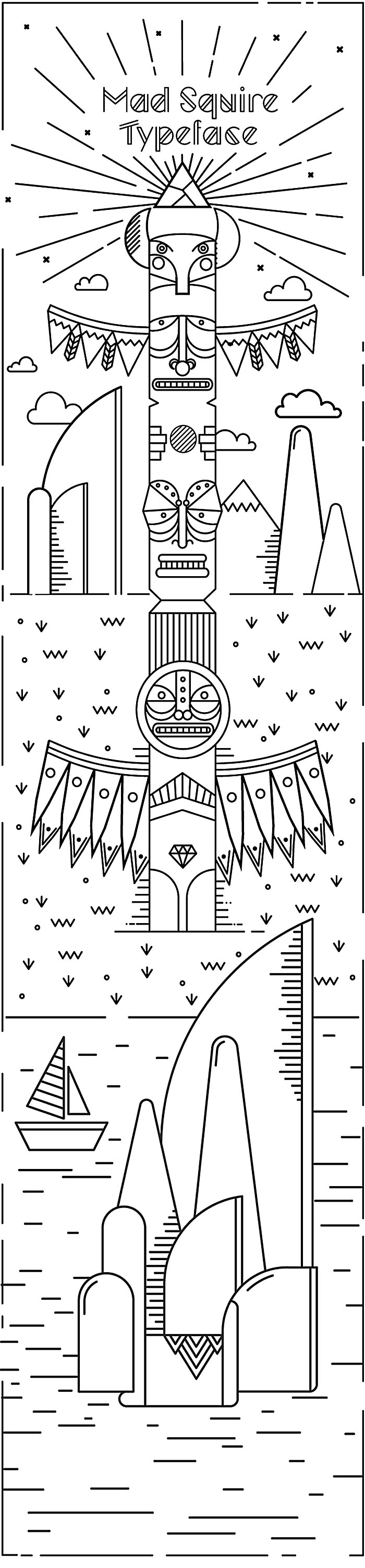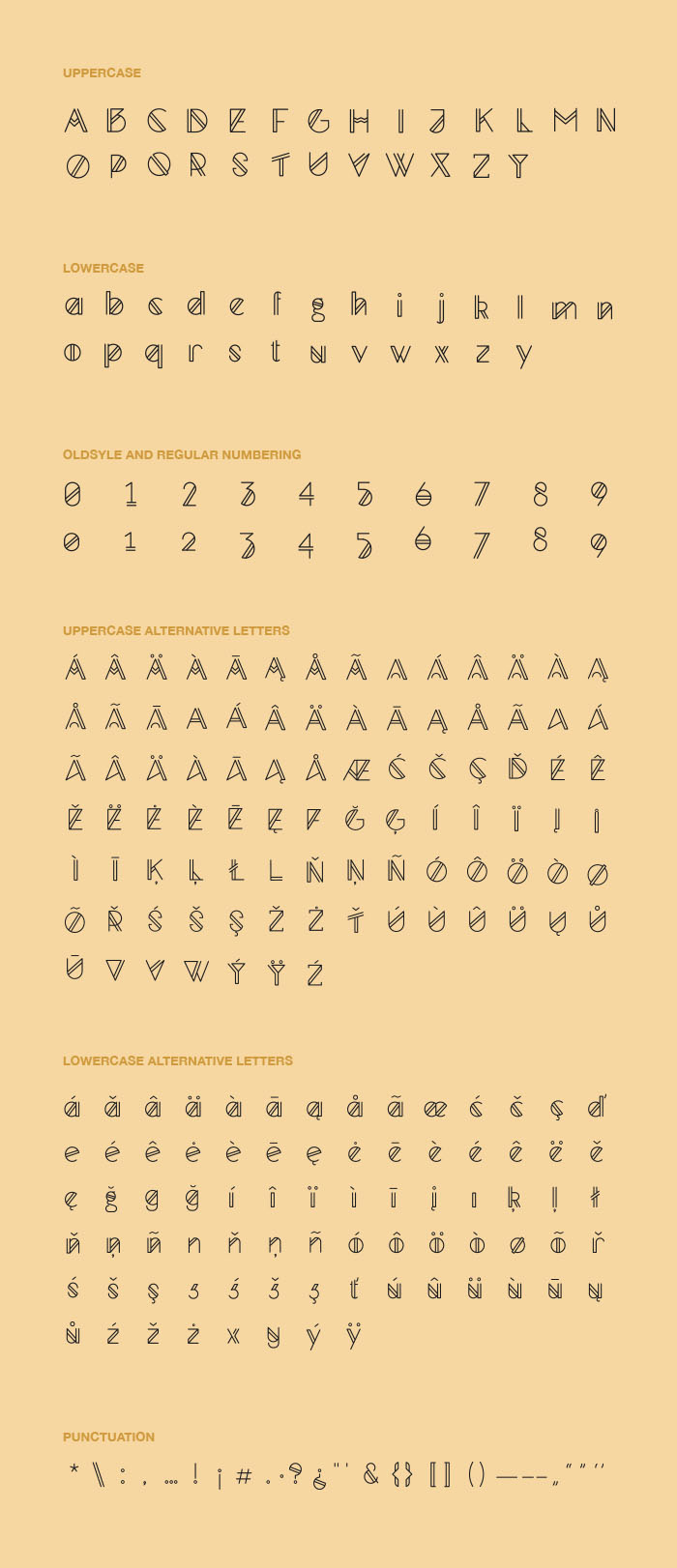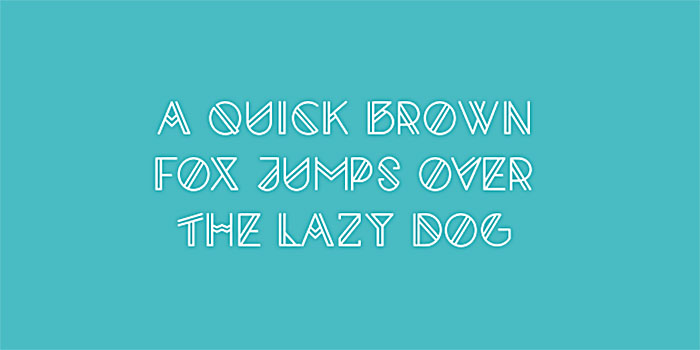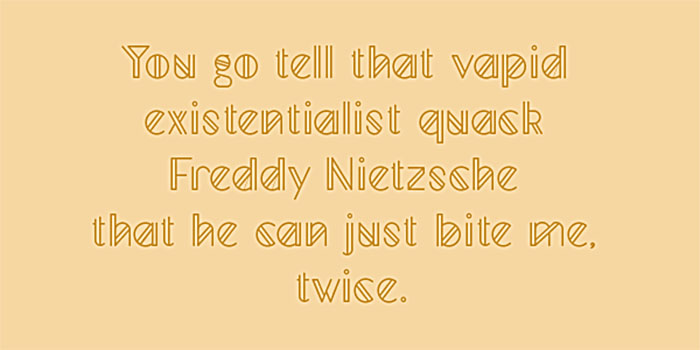
MadSquire – Free Futuristic Font
This cool custom font is from Nele Tullus. With unique futuristic style and great for your new creative projects. Download and enjoy 😉